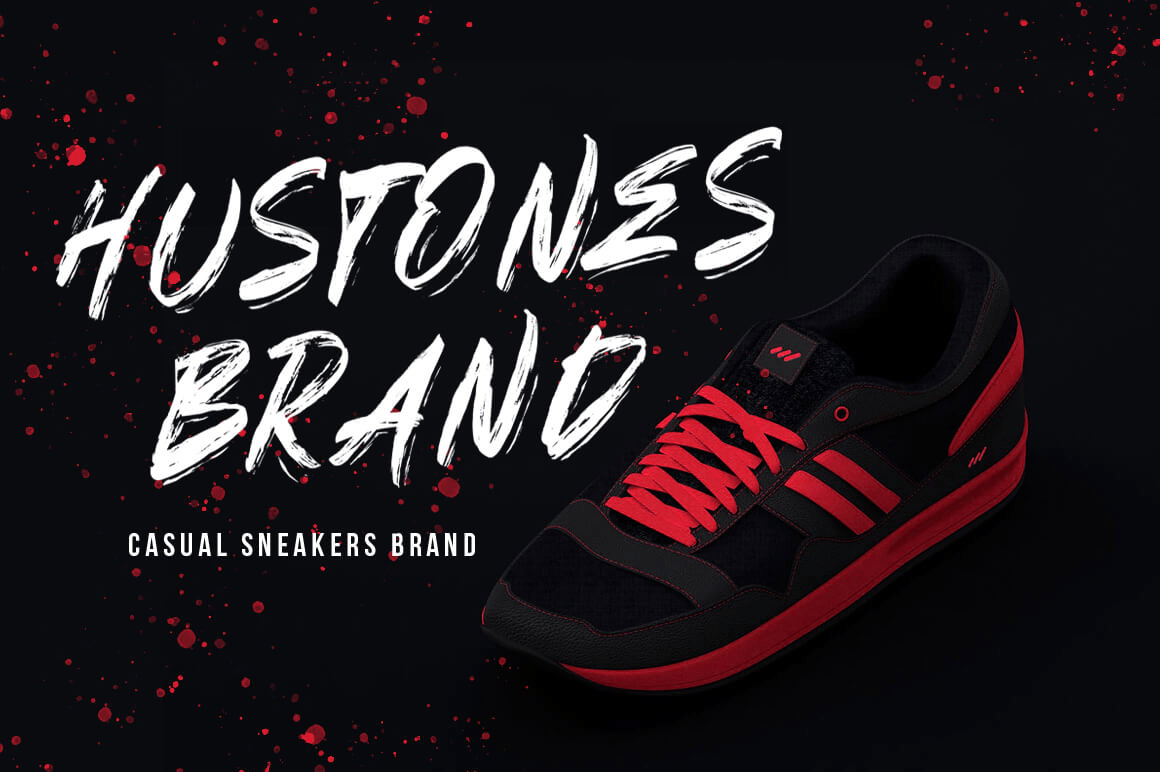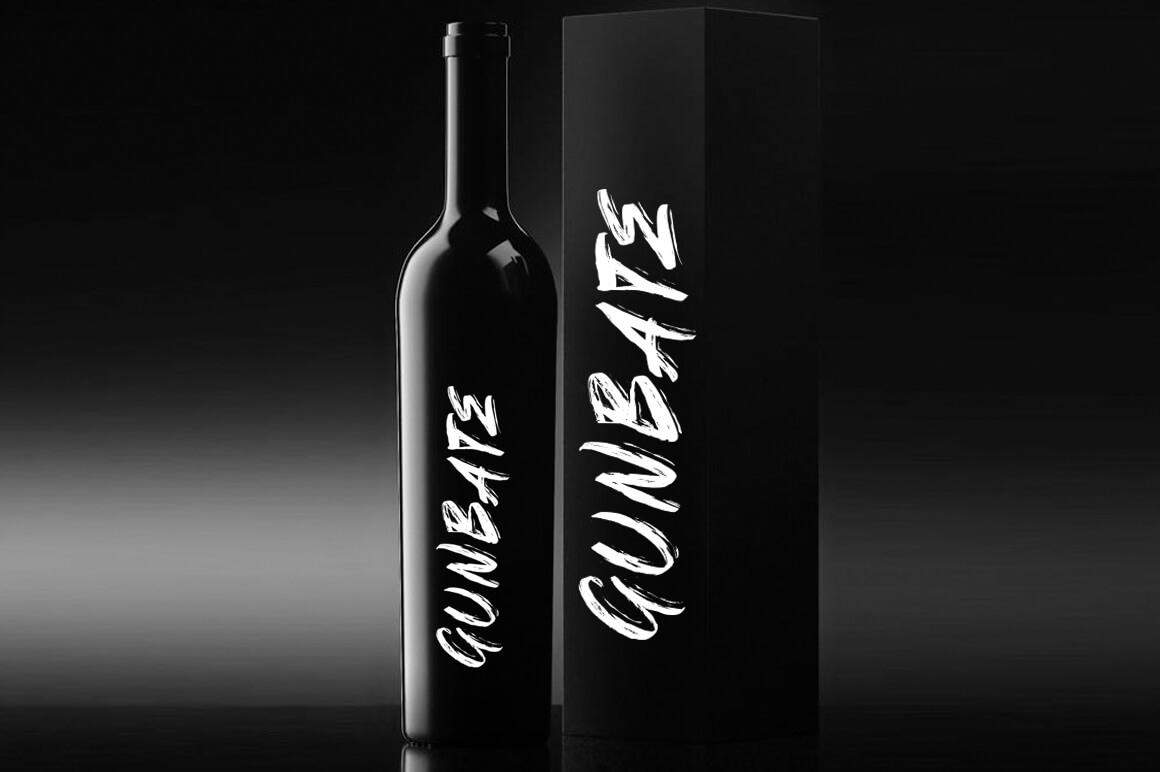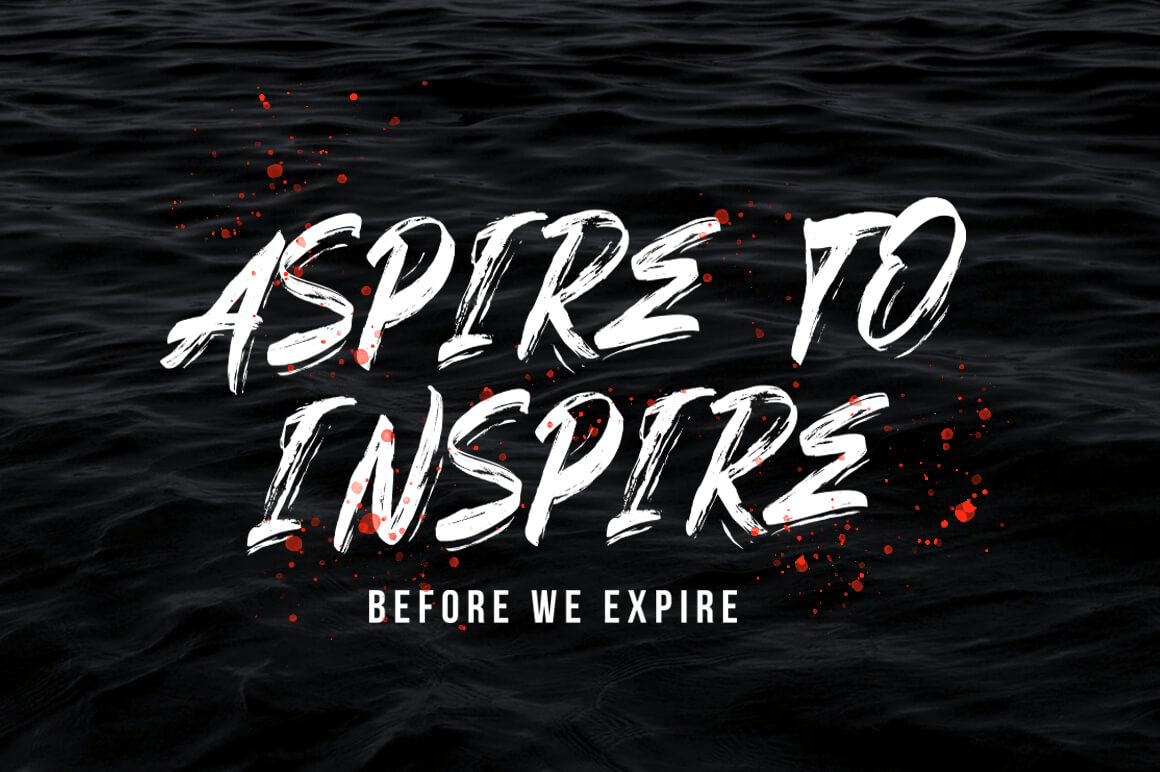
INTRODUCING Goshbe Brush Font! Goshbe is a bursting street-wise brush font, with extra attention to quick strokes and sharp details. It\’s ideal for logos, apparel, T-shirts, hoodies, quotes, product packaging, or anything which needs a typographic turbo-boost.…